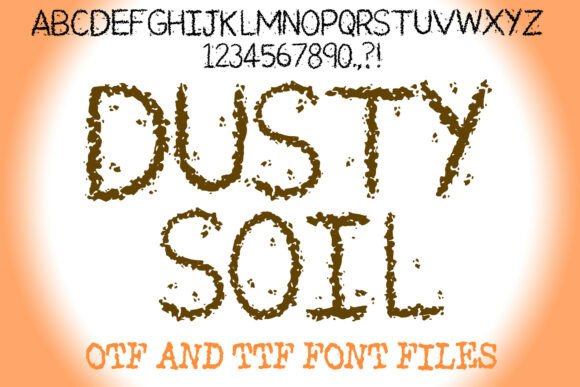
Dusty Soil Font: A Rugged and Weathered Serif Font for Nature-Inspired Branding
Dusty Soil is a unique and captivating font that has gained popularity among designers and brands looking for a rugged, weathered serif font with a distressed texture. This font is inspired by the cracked earth or dried mud, giving it a natural, earthy feel that is perfect for nature-inspired branding, organic packaging, farm markets, or grunge-style posters.
What is Dusty Soil Font?
Dusty Soil font is a serif font with a distressed texture that mimics the appearance of cracked earth or dried mud. The font has a rugged, weathered look that gives it a unique and captivating appearance. The font is designed to evoke a sense of naturalness and earthiness, making it perfect for brands that want to convey a sense of organic and natural products.
Characteristics of Dusty Soil Font
The Dusty Soil font has several characteristics that make it stand out from other fonts. Some of its key features include:
- Distressed texture: The font has a distressed texture that gives it a worn, weathered look.
- Rugged and serif: The font is a serif font with rugged edges and lines, giving it a natural, earthy feel.
- Cracked earth or dried mud inspiration: The font is inspired by the appearance of cracked earth or dried mud, making it perfect for nature-inspired branding.
- Unique and captivating: The font has a unique and captivating appearance that sets it apart from other fonts.
Uses of Dusty Soil Font
The Dusty Soil font is versatile and can be used in a variety of design projects, including:
- Nature-inspired branding: The font is perfect for brands that want to convey a sense of naturalness and earthiness.
- Organic packaging: The font is ideal for organic packaging, as it evokes a sense of natural and organic products.
- Farm markets: The font is perfect for farm markets, as it has a rustic, earthy feel that is reminiscent of rural landscapes.
- Grunge-style posters: The font is ideal for grunge-style posters, as it has a rugged, distressed texture that adds to the overall aesthetic.
Benefits of Using Dusty Soil Font
There are several benefits to using the Dusty Soil font in your design projects, including:
- Unique and memorable: The font has a unique and memorable appearance that can help your brand stand out.
- Natural and earthy feel: The font has a natural, earthy feel that is perfect for brands that want to convey a sense of organic and natural products.
- Versatile: The font is versatile and can be used in a variety of design projects, from branding to packaging to posters.
- Easy to read: Despite its distressed texture, the font is easy to read, making it perfect for body text and headlines.
How to Use Dusty Soil Font
Using the Dusty Soil font in your design projects is easy. Here are a few tips to get you started:
- Pair with a clean font: Pair the Dusty Soil font with a clean font to create contrast and add visual interest.
- Use for headlines and body text: Use the font for headlines and body text to create a cohesive look.
- Experiment with colors: Experiment with different colors to find the perfect combination that complements your brand.
- Use for packaging and branding: Use the font for packaging and branding to create a consistent look and feel.
The Dusty Soil font is a unique and captivating font that is perfect for nature-inspired branding, organic packaging, farm markets, or grunge-style posters. Its distressed texture and rugged, weathered look give it a natural, earthy feel that is sure to evoke a sense of organic and natural products. With its versatility, ease of use, and memorable appearance, the Dusty Soil font is a great addition to any design project.
- What is the Dusty Soil font? The Dusty Soil font is a serif font with a distressed texture that mimics the appearance of cracked earth or dried mud.
- What is the Dusty Soil font used for? The font is used for nature-inspired branding, organic packaging, farm markets, or grunge-style posters.
- Is the Dusty Soil font easy to read? Yes, despite its distressed texture, the font is easy to read, making it perfect for body text and headlines.